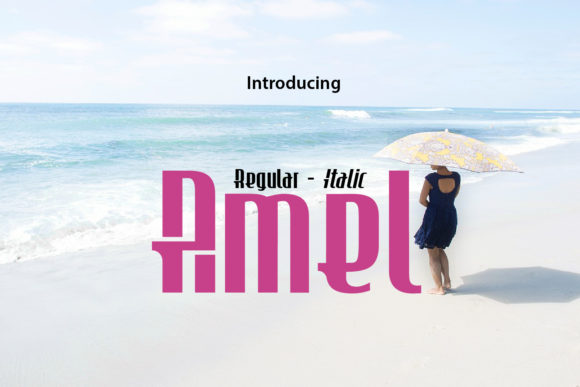
The Amel Font: A Cute and Fresh Display Font for Your Creative Projects
I still remember the time I was working on a project for a client who wanted a font that was both cute and professional. I had spent hours browsing through font libraries, but nothing seemed to fit the bill. That was when I stumbled upon the Amel font. Its fresh and playful design instantly caught my attention, and I knew I had found the perfect fit. In this article, I’ll share my experience with the Amel font, its features, and how to make the most of it in your creative projects.
An Honest Review of Amel Font
So, what makes the Amel font special? Here are some things I love about it:
• ✨ Cute and fresh design: The Amel font has a unique and playful design that sets it apart from other fonts.
• ✅ Highly versatile: It works well on busy backgrounds and as a standalone headline, making it perfect for a variety of design projects.
• 🎉 Easy to read: Despite its playful design, the Amel font is easy to read, even in smaller sizes.
However, like any font, Amel has its quirks. Here are a few things to keep in mind:
• 🤔 Limited use in body text: While Amel is perfect for headlines and titles, it may not be the best choice for body text due to its playful design.
• ⚠️ Kerning issues on some platforms: Some users have reported kerning issues when using Amel on certain platforms. However, this can be easily fixed by adjusting the kerning settings.
The Backstory of Amel Font
The Amel font was designed by a team of typographers who wanted to create a font that was both cute and professional. The font was inspired by the beauty of handwritten typography and the simplicity of digital design. The designers behind Amel font aimed to create a font that would be perfect for creative projects, such as branding, packaging, and advertising.
Q: What is the Amel font?
A: The Amel font is a cute and fresh display font that’s perfect for creative projects.
Q: Does Amel font support OpenType features?
A: Yes, Amel font supports OpenType features, such as glyphs and stylistic alternates.